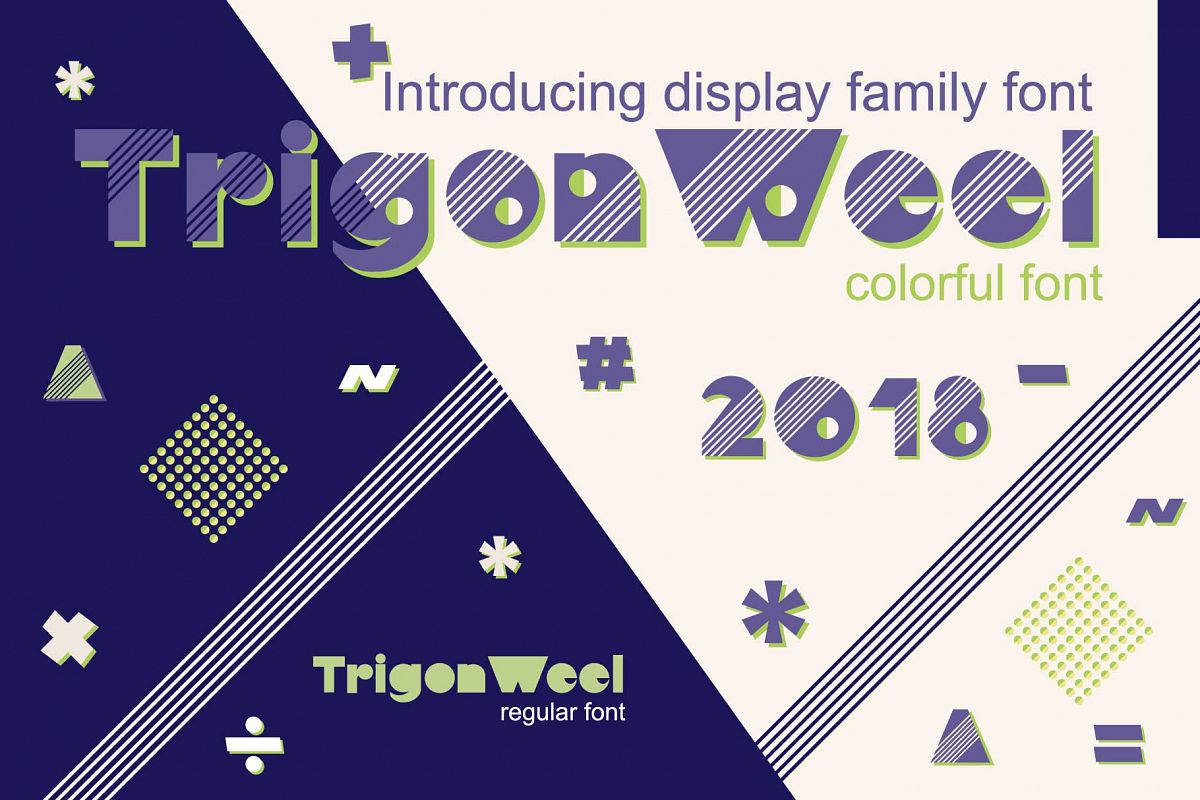
TrigonWeel color OTF font
TrigonWeel color OTF font. Modern display colorful grotesque
sans-serif font.
It’s a
stunning geometric display font in Memphis style, perfect for completely
contemporary designs that need a color block appeal. This gorgeous font comes